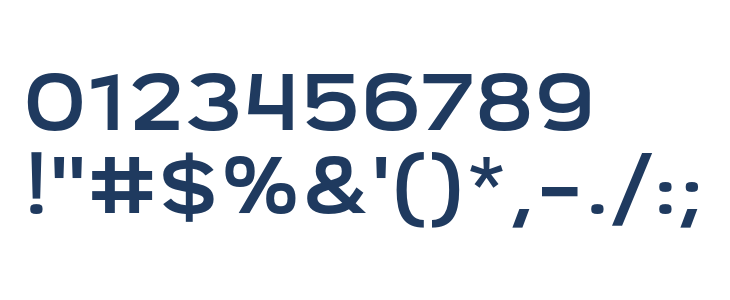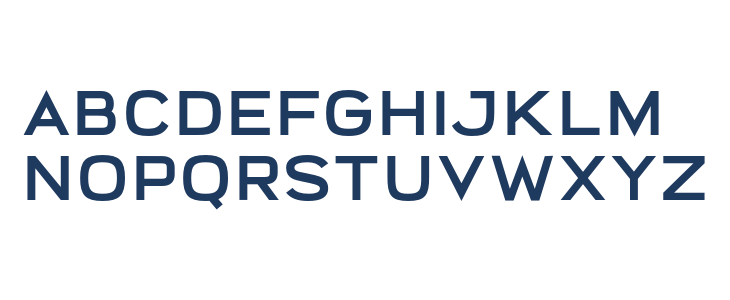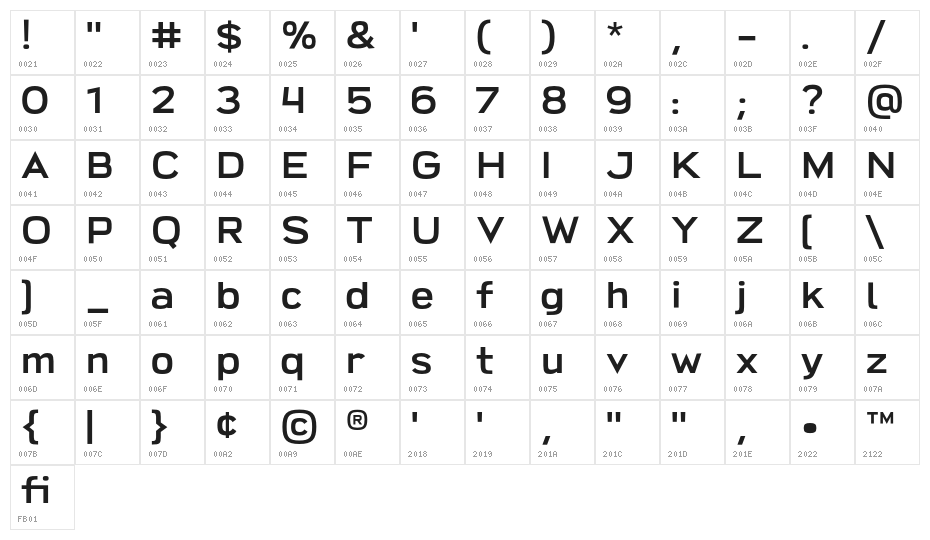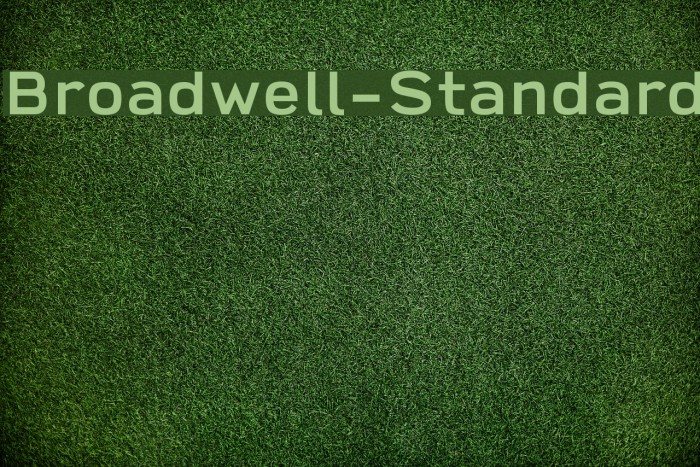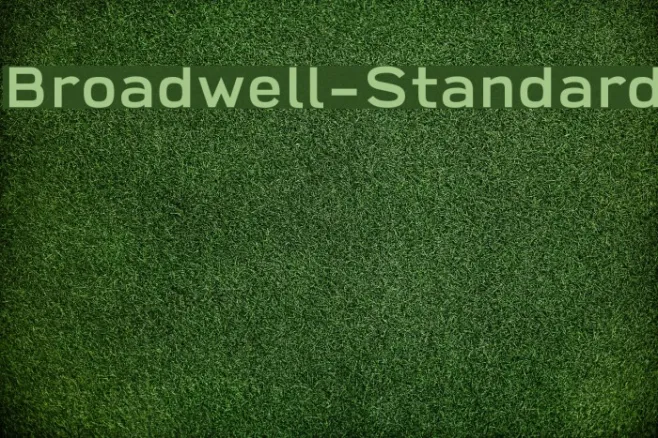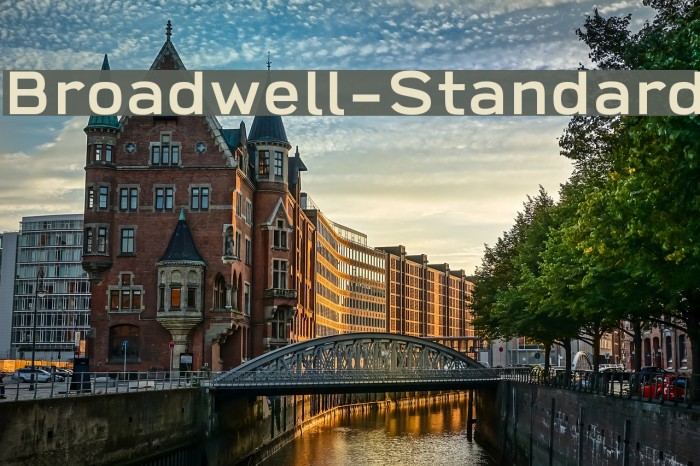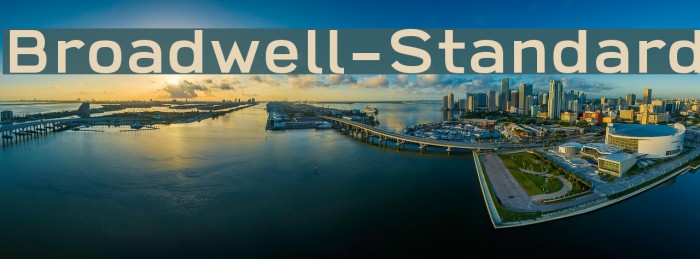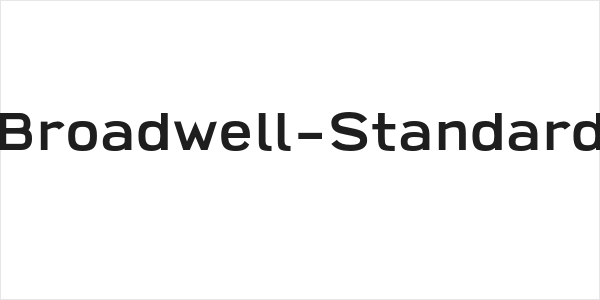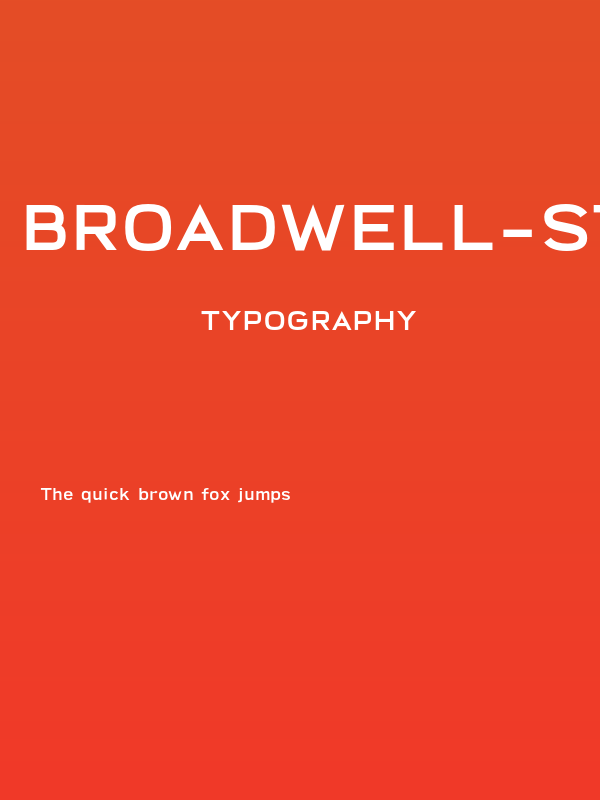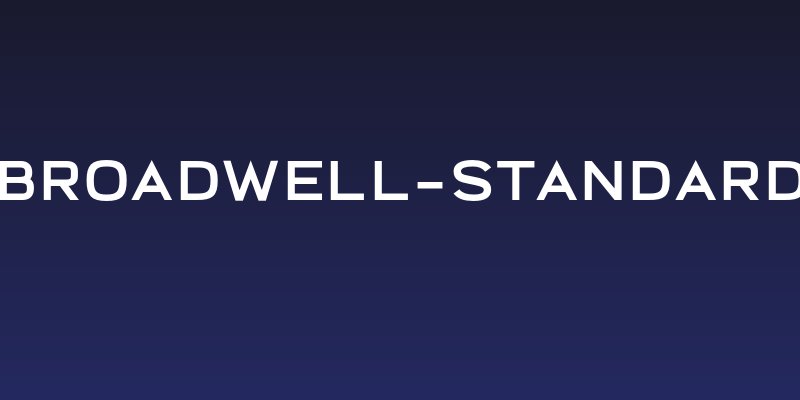
Broadwell-Standard Font
Broadwell-Standard Description
This font features a clean and modern sans-serif design, characterized by its uniform stroke width and geometric shapes. The uppercase letters are bold and assertive, while the lowercase letters maintain a consistent and balanced appearance. The numerals are clear and easily distinguishable, making them suitable for various applications. The special characters are well-integrated, ensuring a cohesive look across all glyphs. Its simplicity and clarity make it versatile for both digital and print media.
| Use Case | Headlines, Logos, Web design |
| Proposed Projects | Ideal for branding, web design, advertising, and editorial projects. |